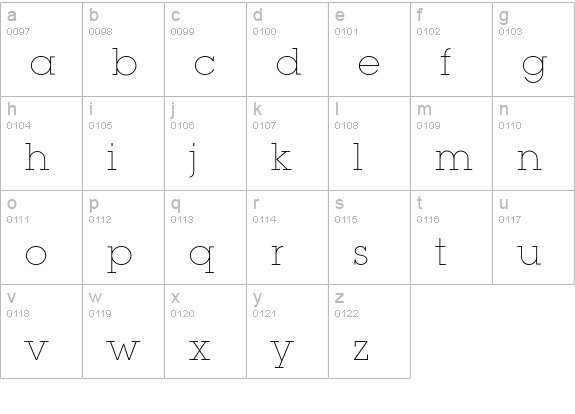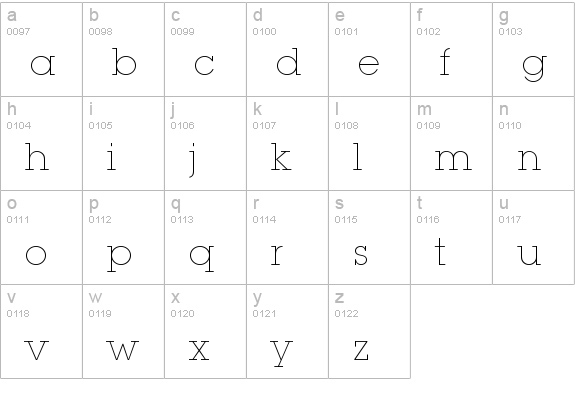
LubalinGraphEF-ExtraLight is an airy, ultra-refined variant in the LubalinGraphEF typeface family \xE2\x80\x94 well suited to minimalist headlines and refined display use.
LubalinGraphEF-ExtraLight is a modern and sleek typeface that exudes elegance and sophistication. With its clean lines and minimalist design, this font is perfect for conveying a sense of refinement and professionalism in any project. The ExtraLight weight variant of LubalinGraphEF offers a delicate touch, adding a subtle airiness to your text while maintaining excellent readability. This font is available for free download at FontsMarket.com, making it easily accessible for designers and creatives looking to enhance their work with a touch of sophistication. Whether you're designing a sleek website, crafting a minimalist logo, or creating elegant print materials, LubalinGraphEF-ExtraLight is sure to elevate your design with its timeless appeal.